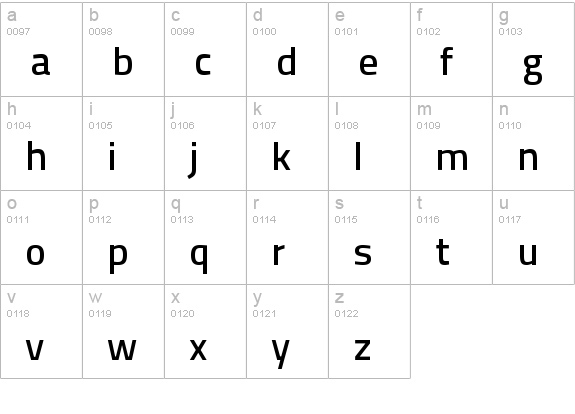
TitilliumText14L 600 wt is a bold and impactful font that exudes confidence and modernity. With its thick strokes and sharp angles, this font commands attention and makes a bold statement in any design project. Whether used for headings, signage, or branding materials, TitilliumText14L 600 wt is sure to leave a lasting impression. The best part? This versatile font is available for free download at FontsMarket.com. Simply visit the website and start incorporating TitilliumText14L 600 wt into your projects today. Don't miss out on this opportunity to elevate your designs with this sleek and stylish font.